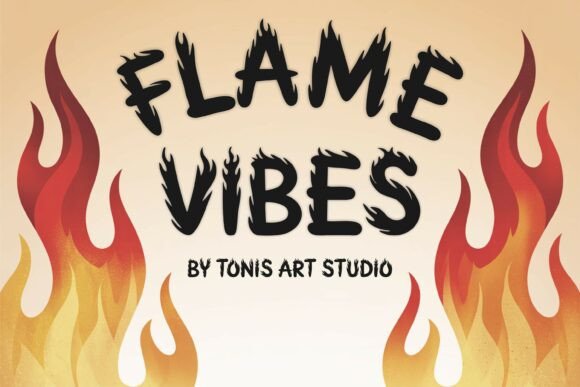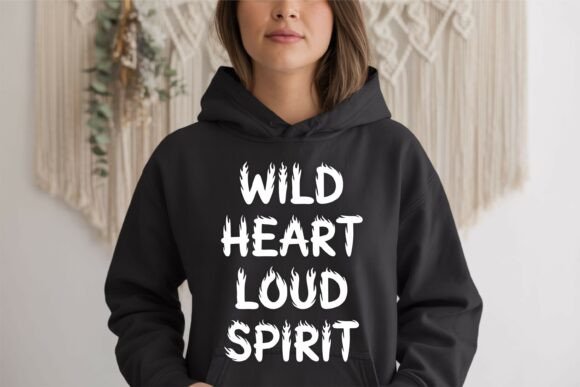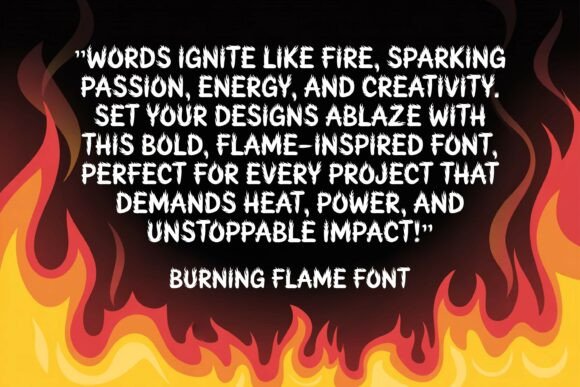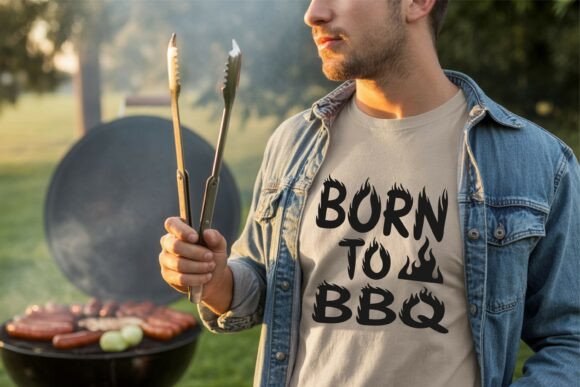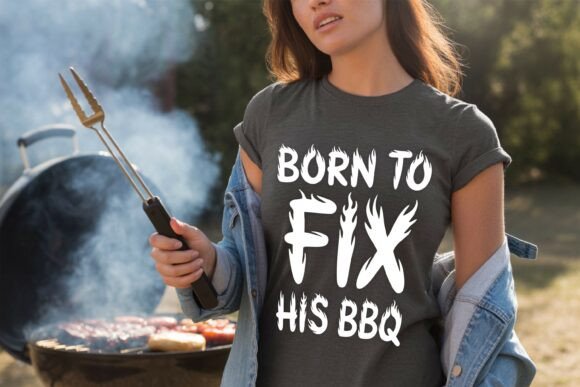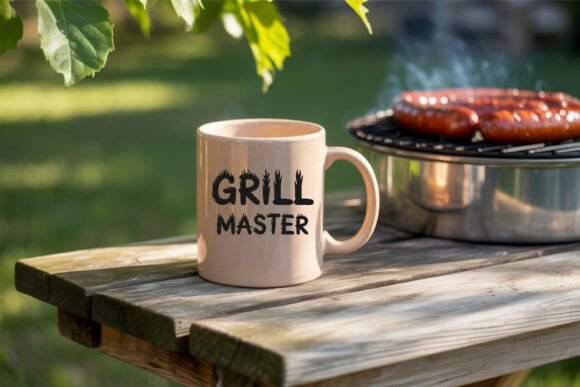
Set Your Creativity Ablaze with the Burning Flame Font
Are you looking for a font that can add a spark to your designs? Look no further than the Burning Flame Font, a bold and fiery display typeface that is sure to transform every project into a showstopper. With its blazing flame-inspired details, this font brings heat, energy, and impact to your designs, making it perfect for a wide range of creative projects.
Unleash Your Creativity with Burning Flame Font
The Burning Flame Font is designed to ignite your creativity and take your designs to the next level. Each letter is carefully crafted with flame-inspired details, giving your projects a bold and eye-catching look. Whether you’re making BBQ invitations, hot summer party signs, grilling aprons, or bold apparel, this font delivers striking results that are sure to grab attention.
Perfect for Crafters and Designers
Comprehensive Character Set
The Burning Flame Font comes with a comprehensive character set, including uppercase A-Z, numbers 0-9, and a full range of symbols. This ensures flexibility for every type of design, allowing you to experiment with different words, phrases, and ideas. Whether you’re creating a simple design or a complex one, this font has got you covered.
The Burning Flame Font offers endless design possibilities, making it a versatile addition to your font collection. Here are some ideas to get you started:
- BBQ invitations and party signs
- Grilling aprons and chef hats
- Bold apparel, such as t-shirts and hoodies
- Mugs, water bottles, and other drinkware
- Camping gear, such as tents and sleeping bags
- Digital artwork, such as posters and social media graphics
Why Choose the Burning Flame Font?
So why choose the Burning Flame Font? Here are just a few reasons:
- Unique and eye-catching design: The Burning Flame Font is unlike any other font on the market, with its bold and fiery design that’s sure to grab attention.
- Comprehensive character set: With uppercase A-Z, numbers 0-9, and a full range of symbols, this font has everything you need to create a wide range of designs.
- Easily readable: Despite its bold and fiery design, the Burning Flame Font is easily readable, making it perfect for use on a variety of projects.
Get Ready to Ignite Your Designs